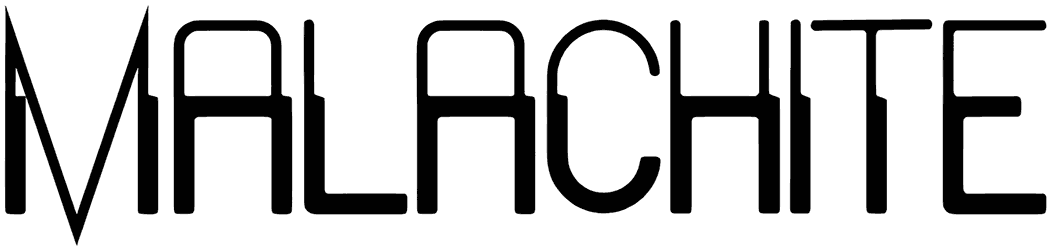
Malachite Font
It may appear difficult to choose the perfect font for designing, but RB is here to help you get started with a truly fancy, futuristic font. Even though it lacks lowercase characters, the Malachite font can elevate the level of your design.
Its half-thick, half-bold letters are ideal for conveying futuristic sensations when designing posters, social media, movies, and other things. Our list is chock-full of valuable freebies like this one; would you want to have a look?